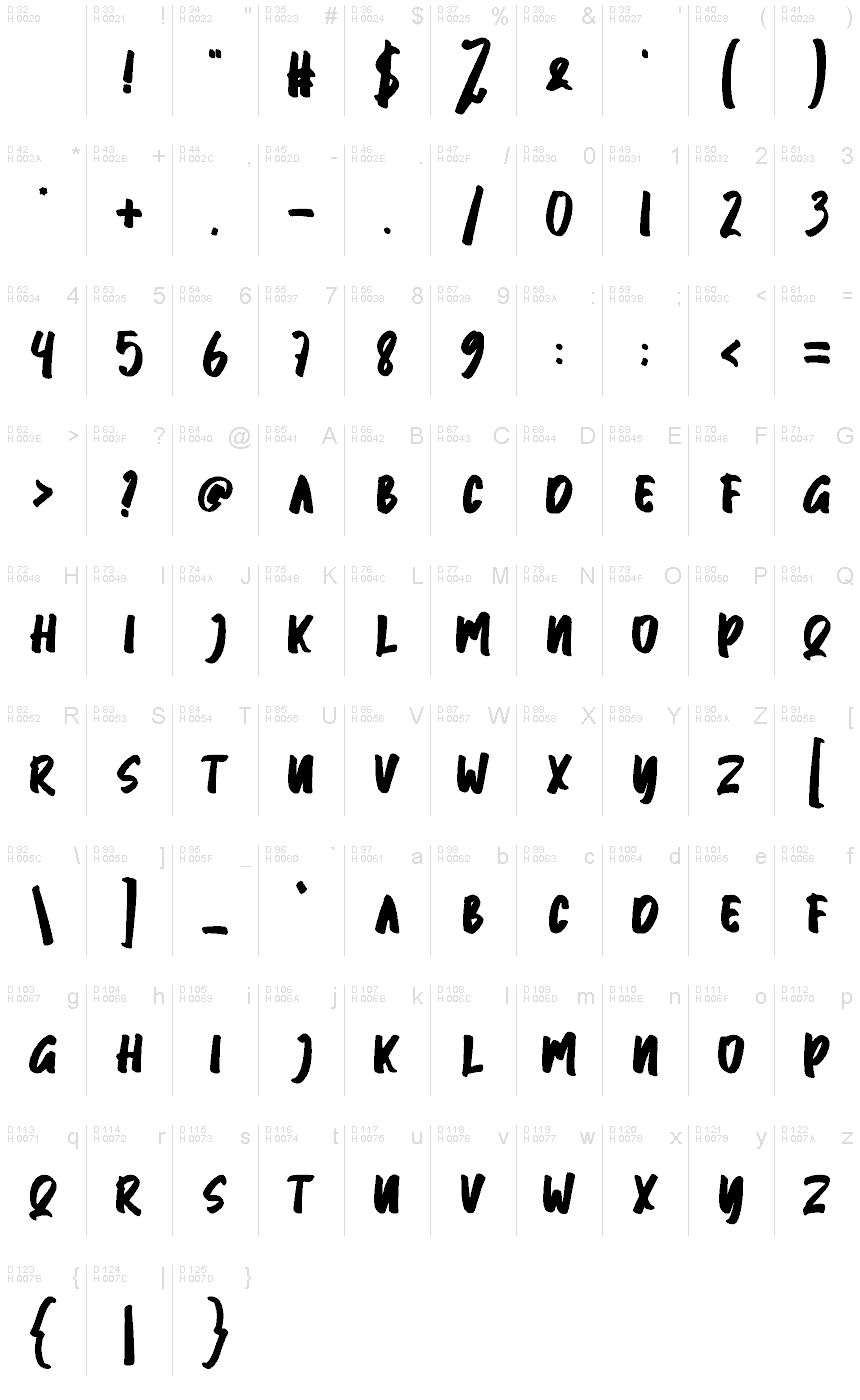
Nezires
Nezires font by Skiiller Studio is an expressive brush typeface with an energetic presence. The handwritten letters are decorated each with a distinctive artistic twist for unmatching authenticity. This style makes this condensed font ideal for casual projects in which aesthetics matters more than legibility.
The author made the font completely free to test out and explore its creative potential. Sub-headlines are one idea to experiment with in magazines, newspapers, blogs, websites, and posters. Other suitable projects include quote designs, social media posts, business cards, labels, t-shirts ornaments or patterns on clothing items.